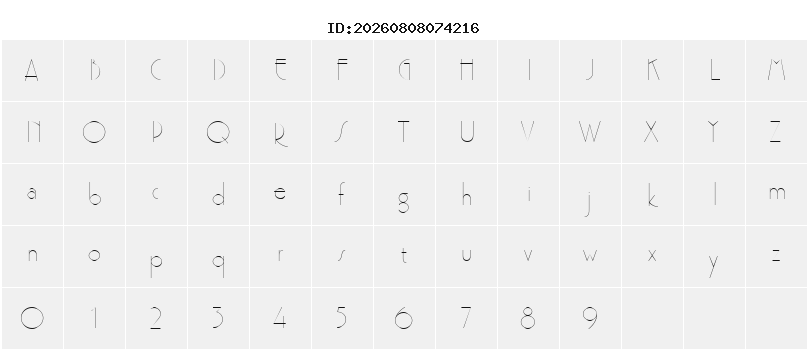
About Premier Lightline LET.ttf
Premier Lightline LET.ttf is a modern, elegant sans-serif font designed for ultimate readability and visual harmony. Perfect for branding, headlines, web design, and print materials.